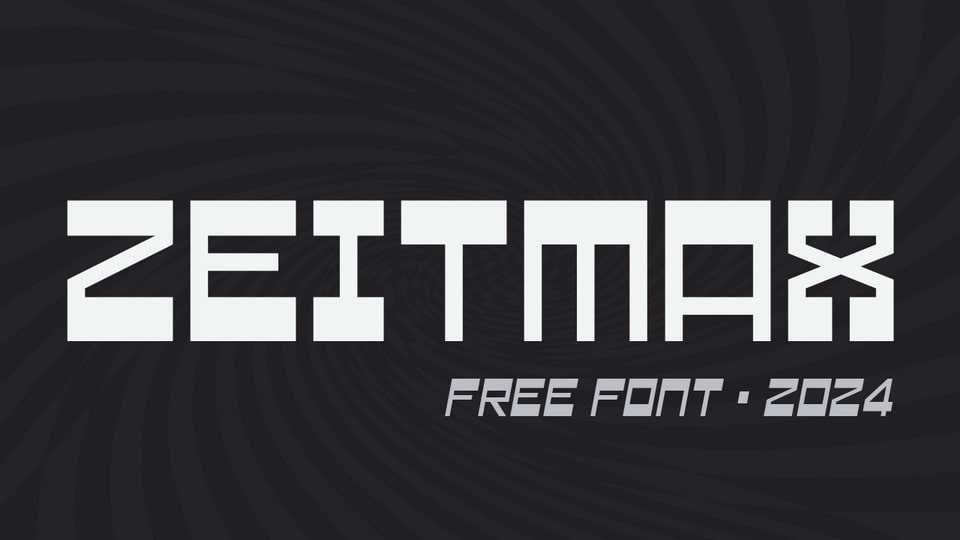
Download Zeitmax font, a bold, blocky geometric display typeface that stands out with its unique reverse contrast, giving it a retro-futuristic edge.